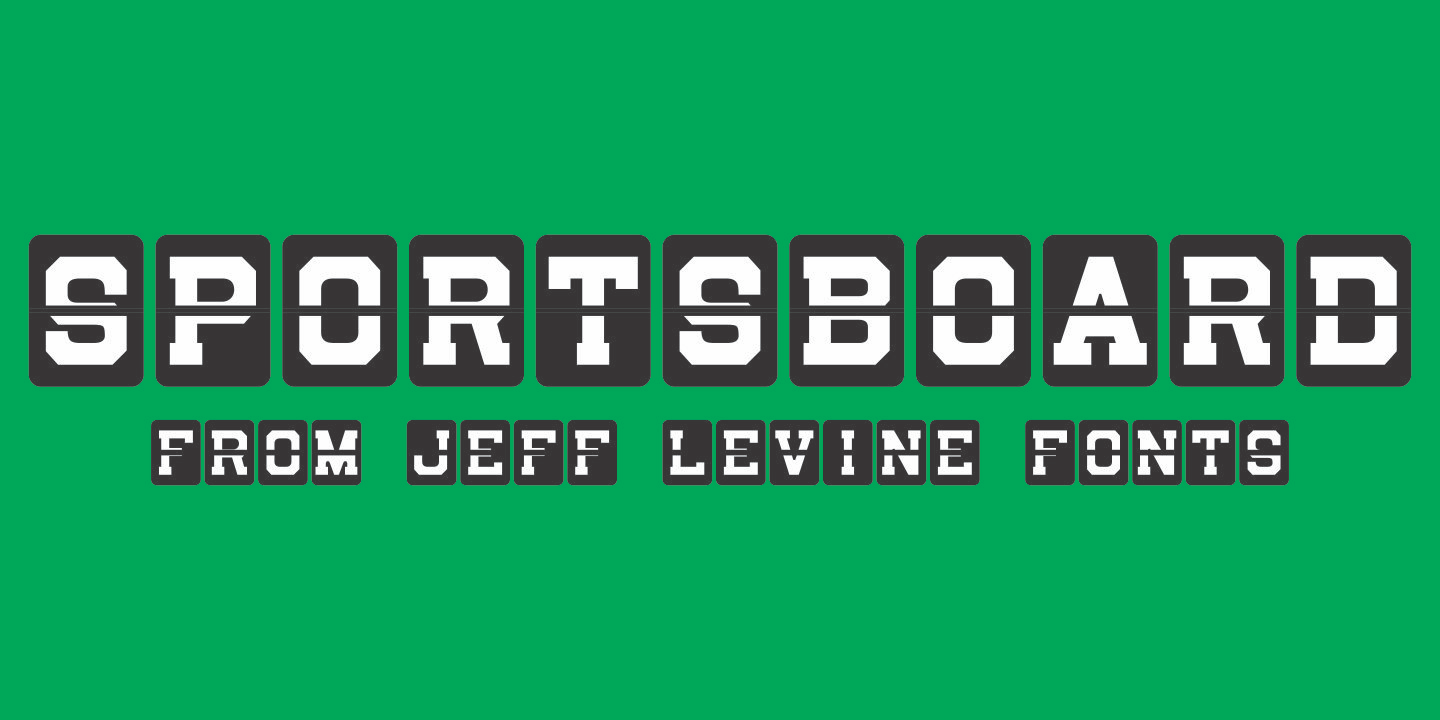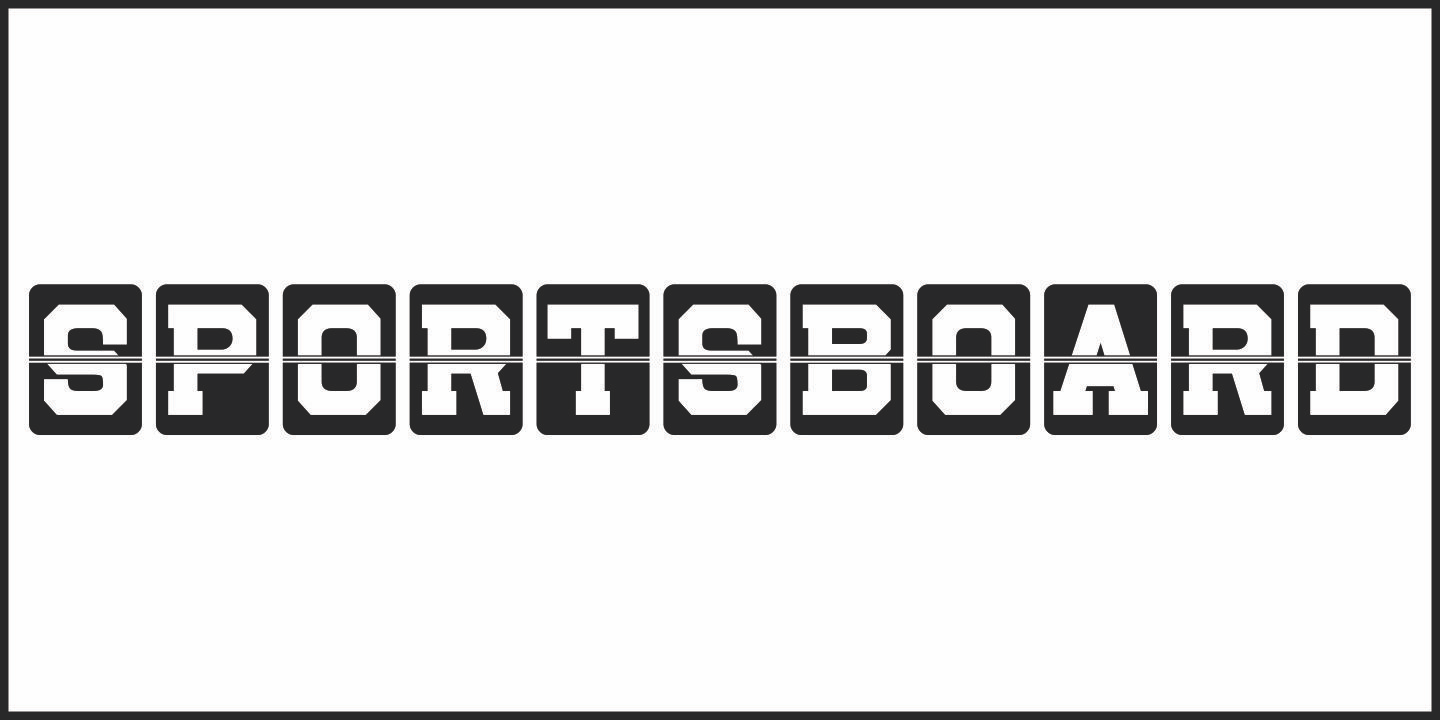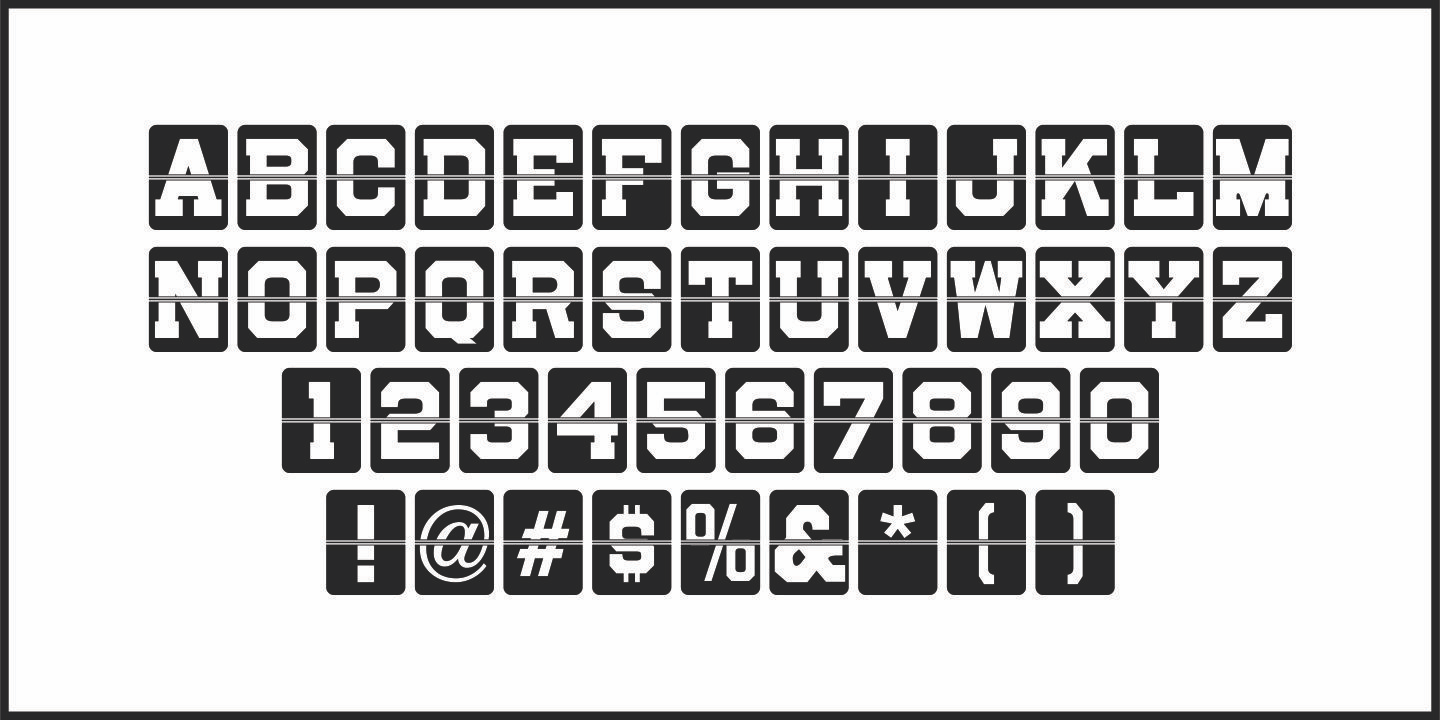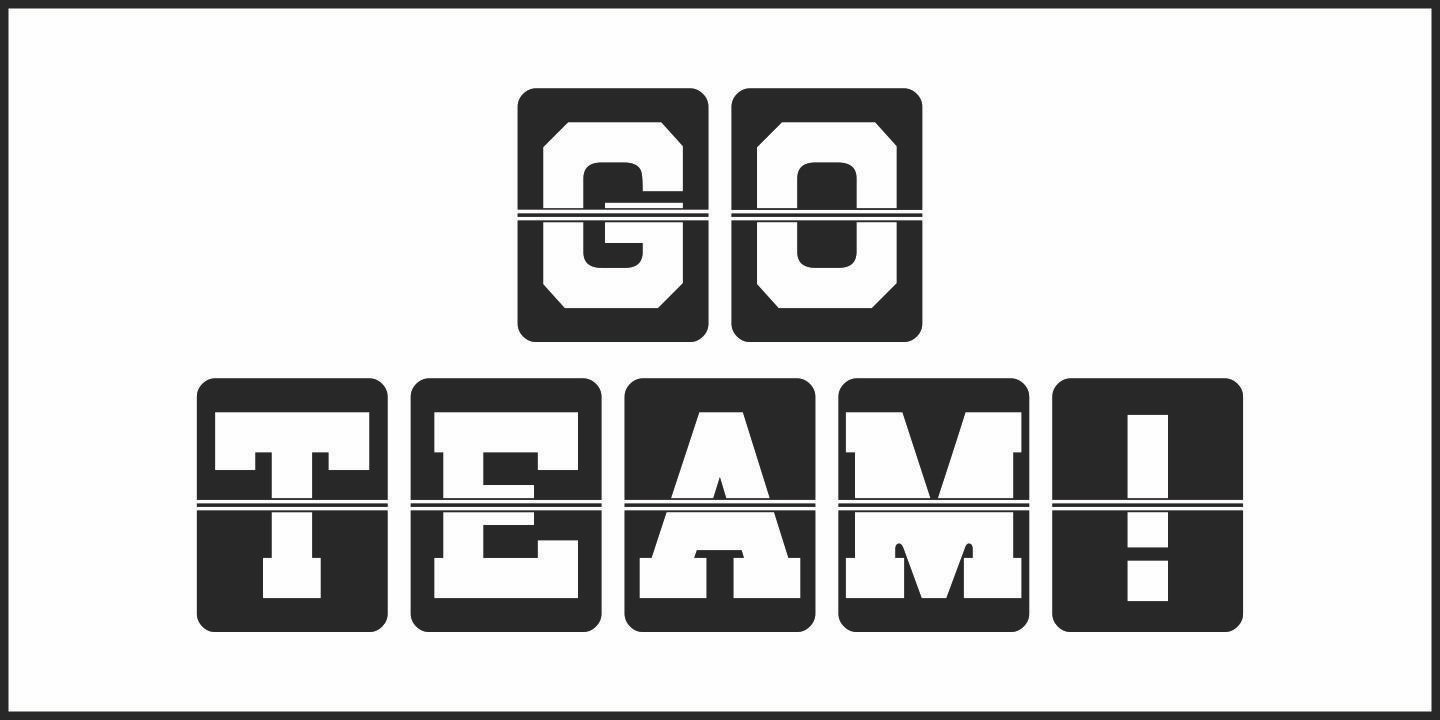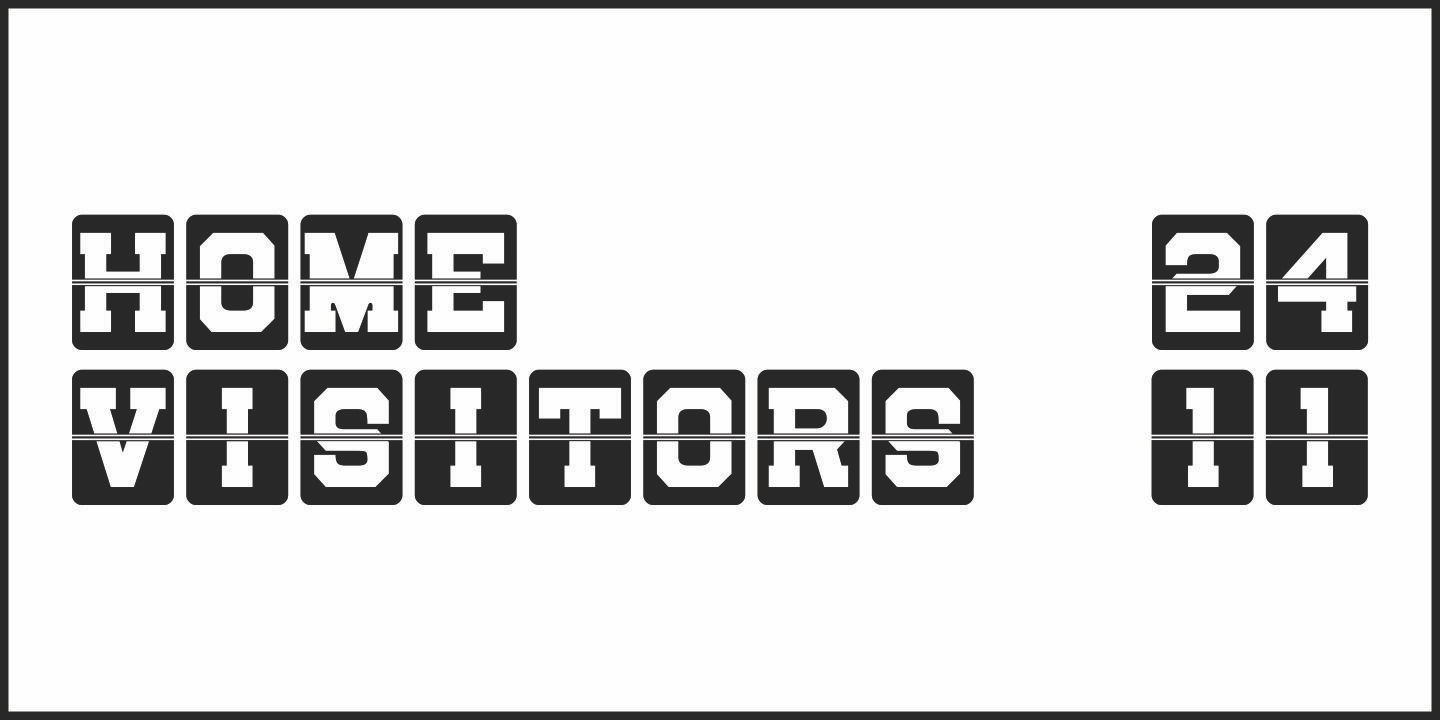
Sportsboard
Sportsboard JNL is a serif font alternate to the popular Flipboard JNL, which emulates the electronic flip-character message boards found at airports, sporting venues and used for election tallies.
The type design used for this version of a flipboard display is Sports Jock JNL.